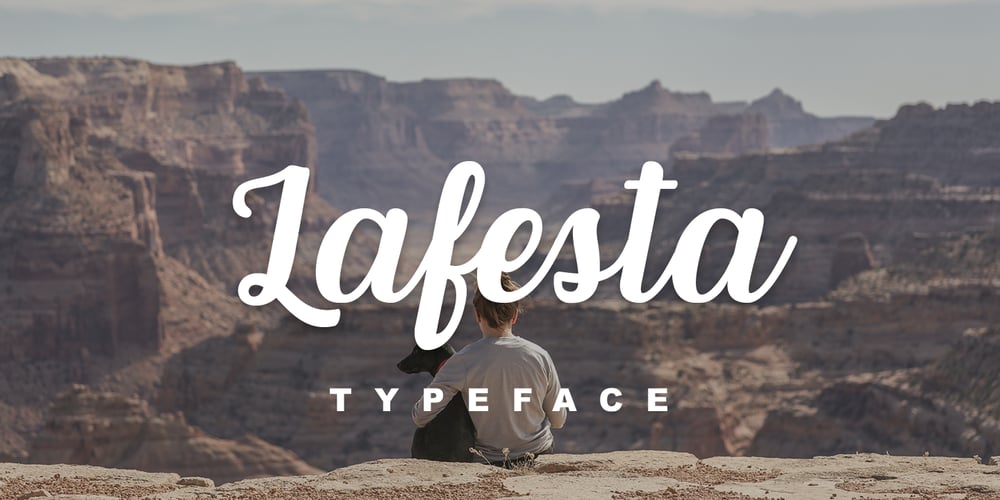
Lafesta Font Family was designed by Dmitrii Chirkov and published by Supfonts. Lafesta contains 1 styles and family package options. I’d like to introduce you to Lafesta family. The happiest font do you’ll ever meet 🙂 They are completely in love with each other, and always get along like a house fire 🙂 Lafesta Family consist of two lovingly handwritten scripts Clean & Vintage Rough. TTF & OTF versions are available. Lafesta Family has multilingual support and many alternates characters. I hope you have oodles of fun using Lafesta Family! Dmitriy Check out my blog: instagram.com/media.lab.co pinterest.com/dmitriychirkov7